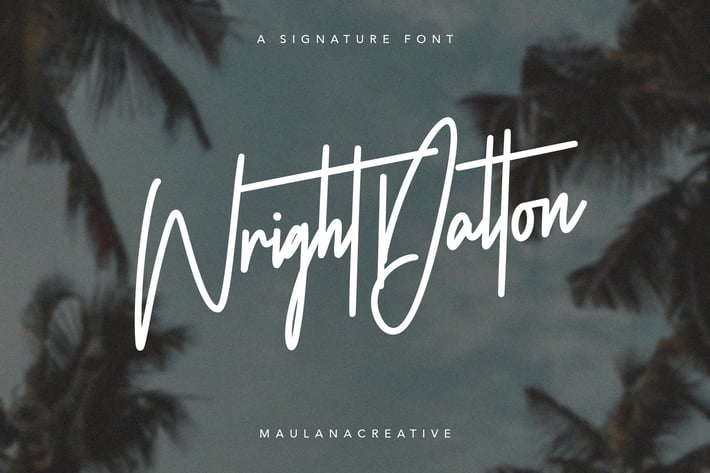
Wright Dalton Signature Script Calligraphy Font
Give your designs an authentic handcrafted feel. “Wright Dalton Signature” is perfectly suited to stationery, logos and much more.